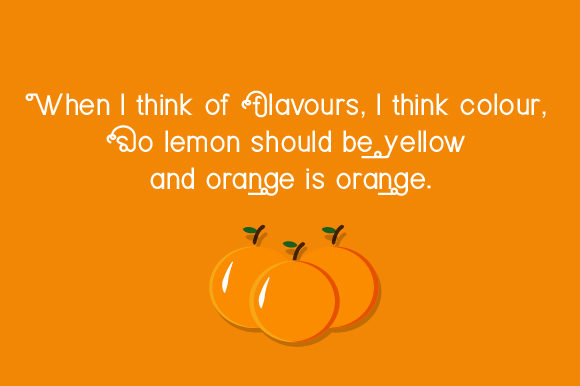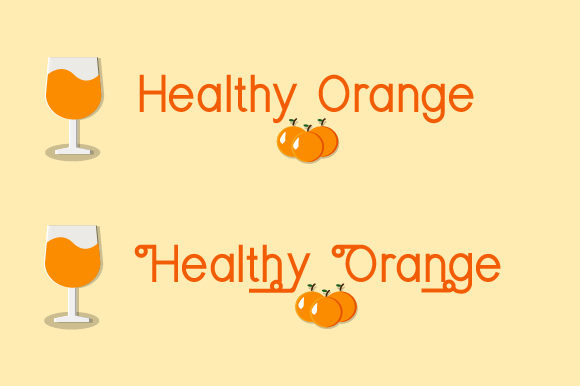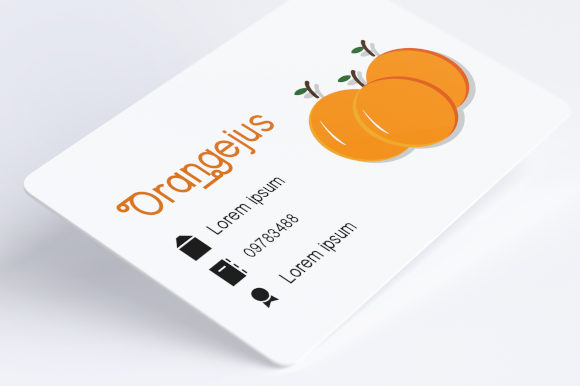
Introduction to Orangejus Font
Orangejus is a modern and sweet sans serif font with a playful tone.
Get inspired by this one-of-a-kind typeface .
Key Features of Orangejus Font